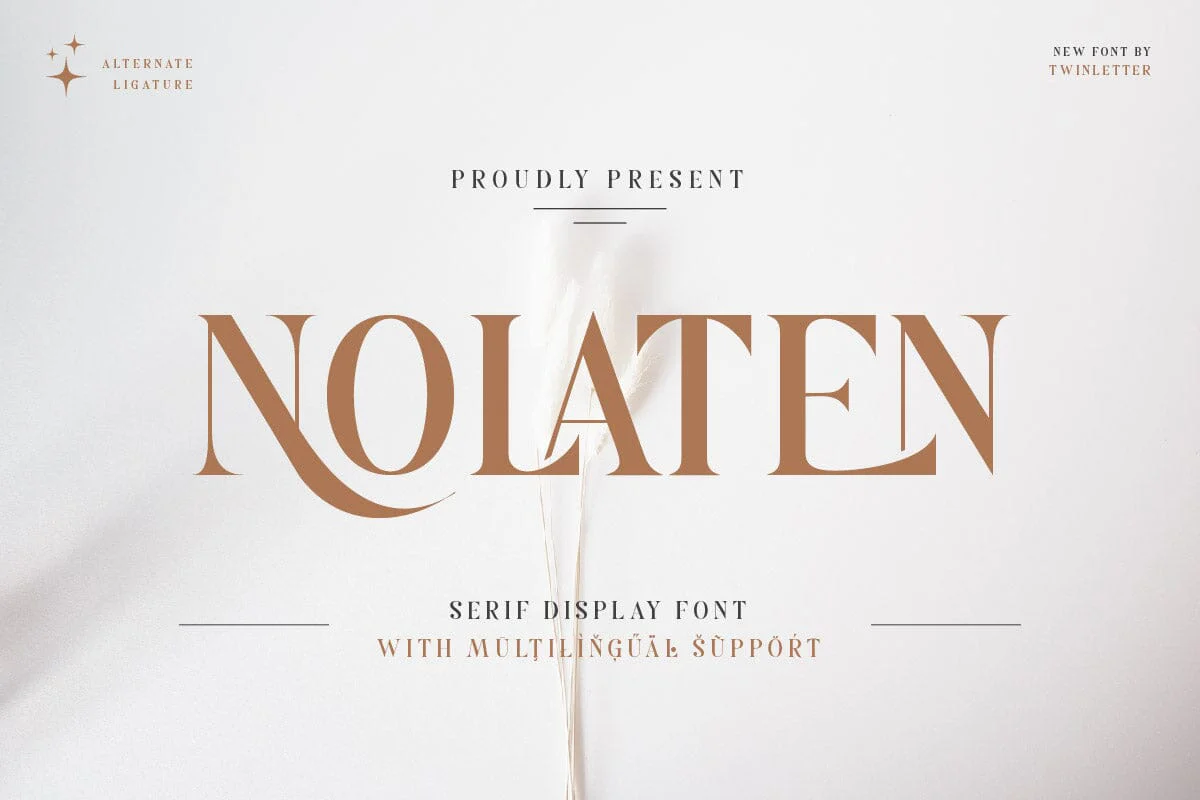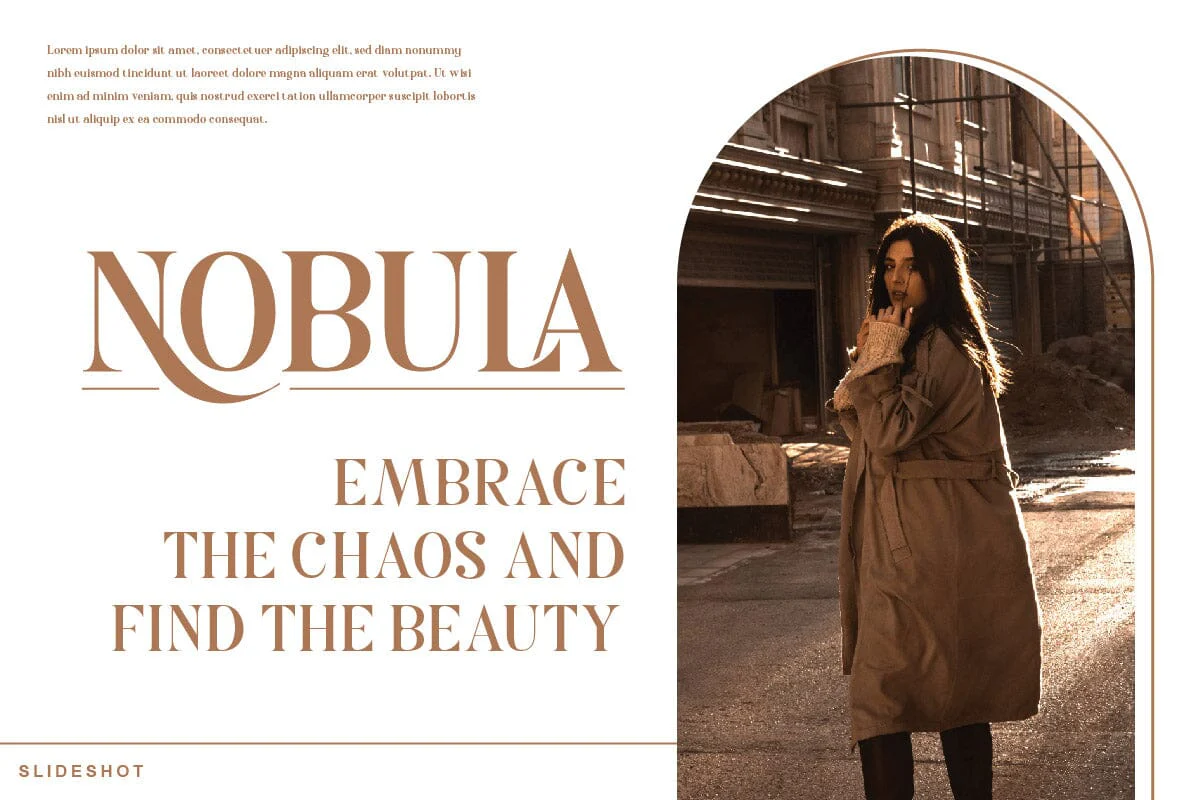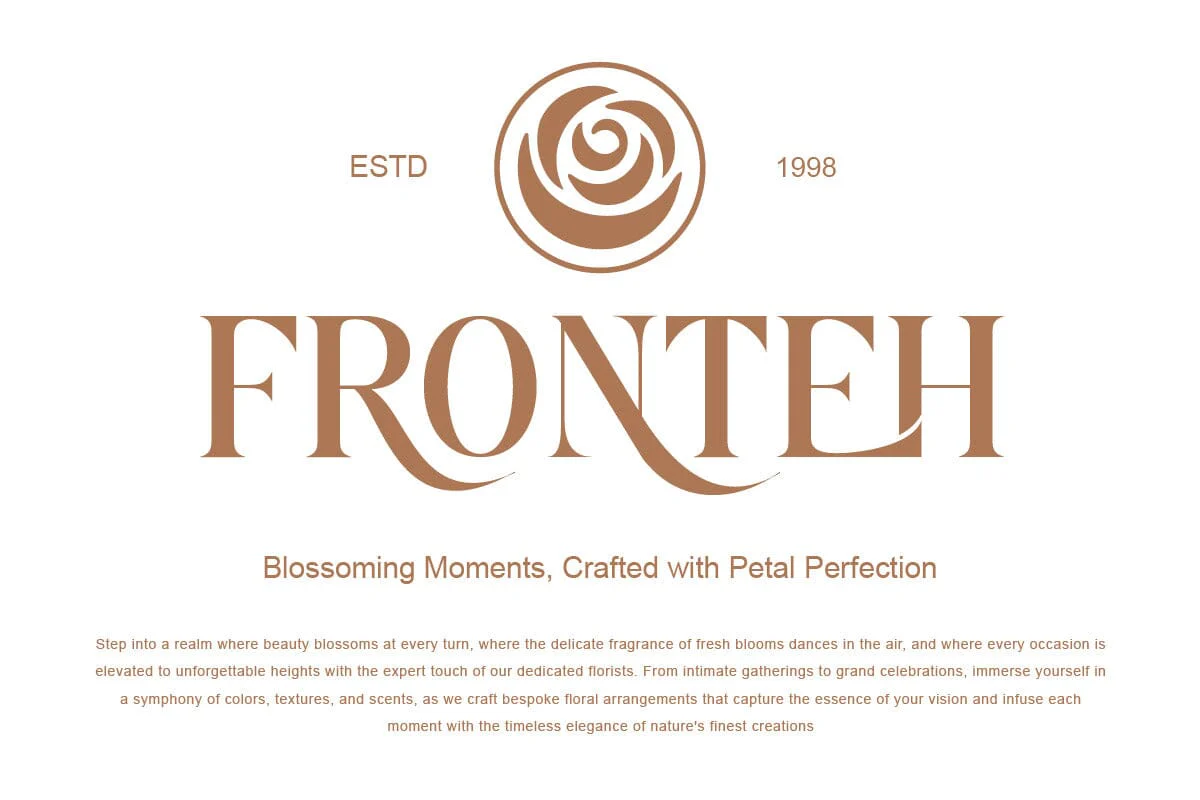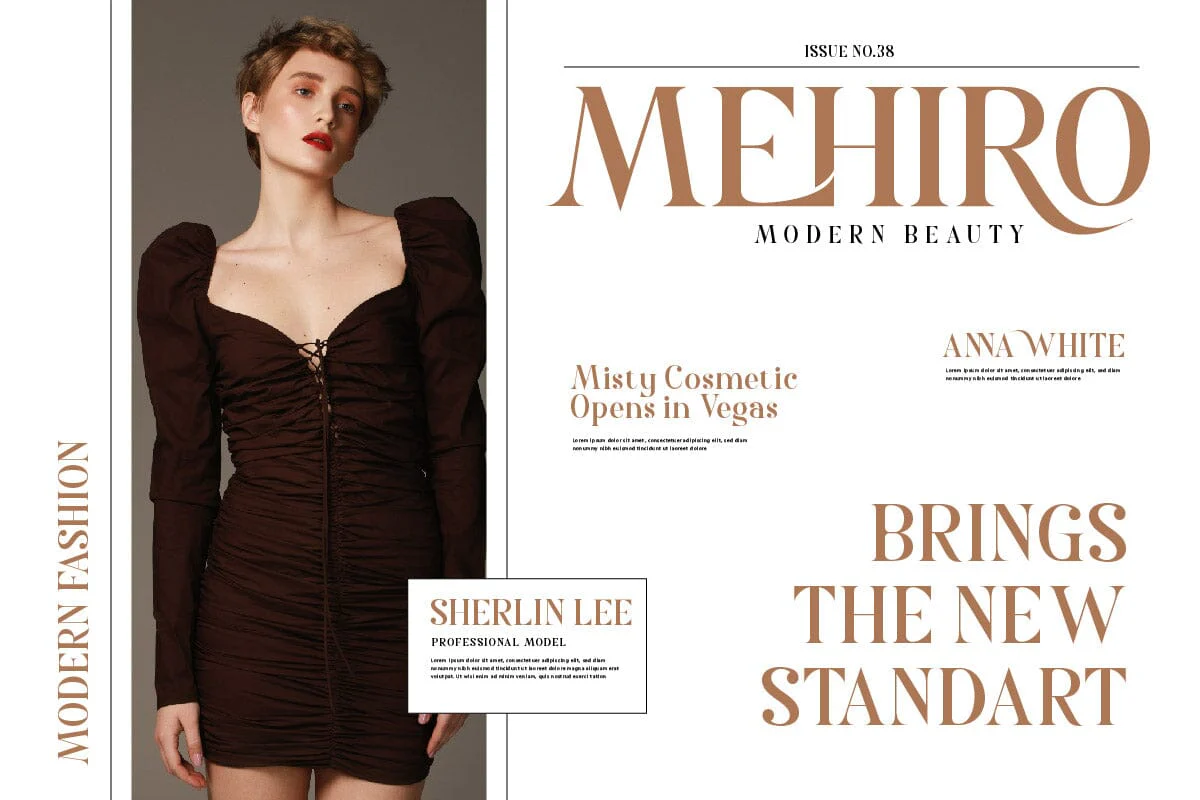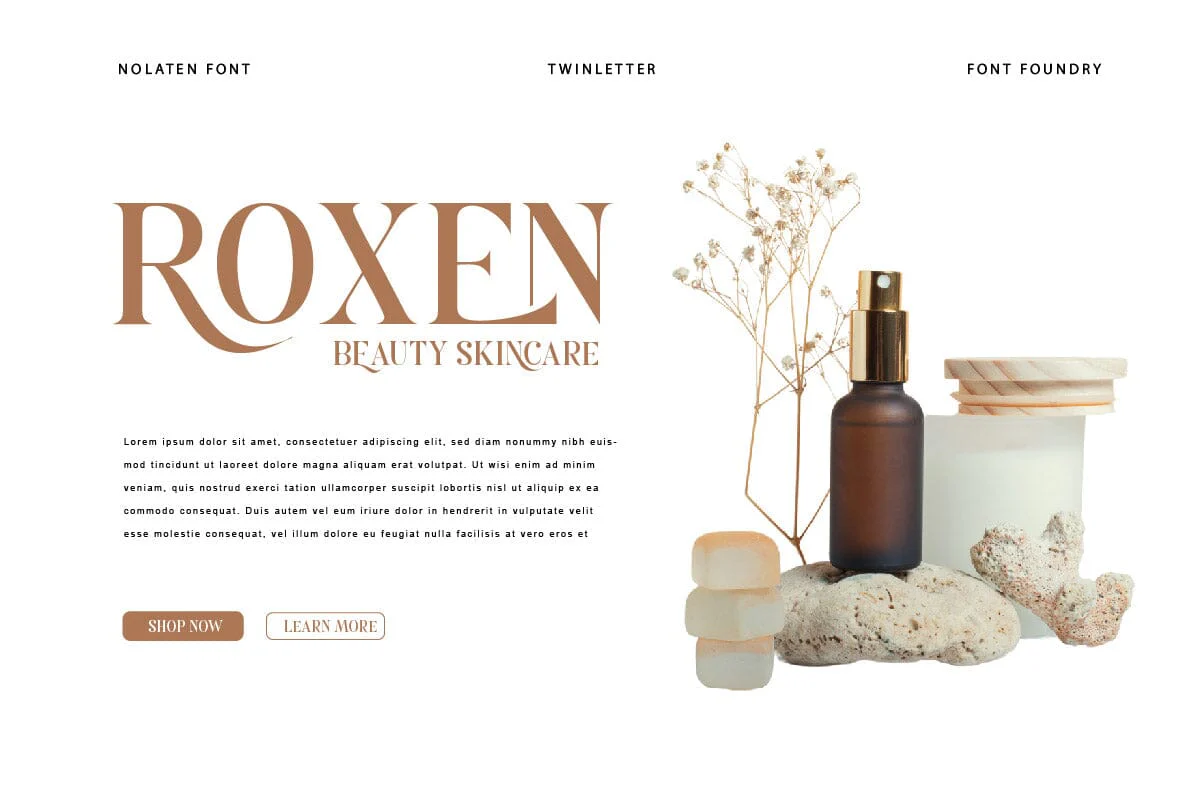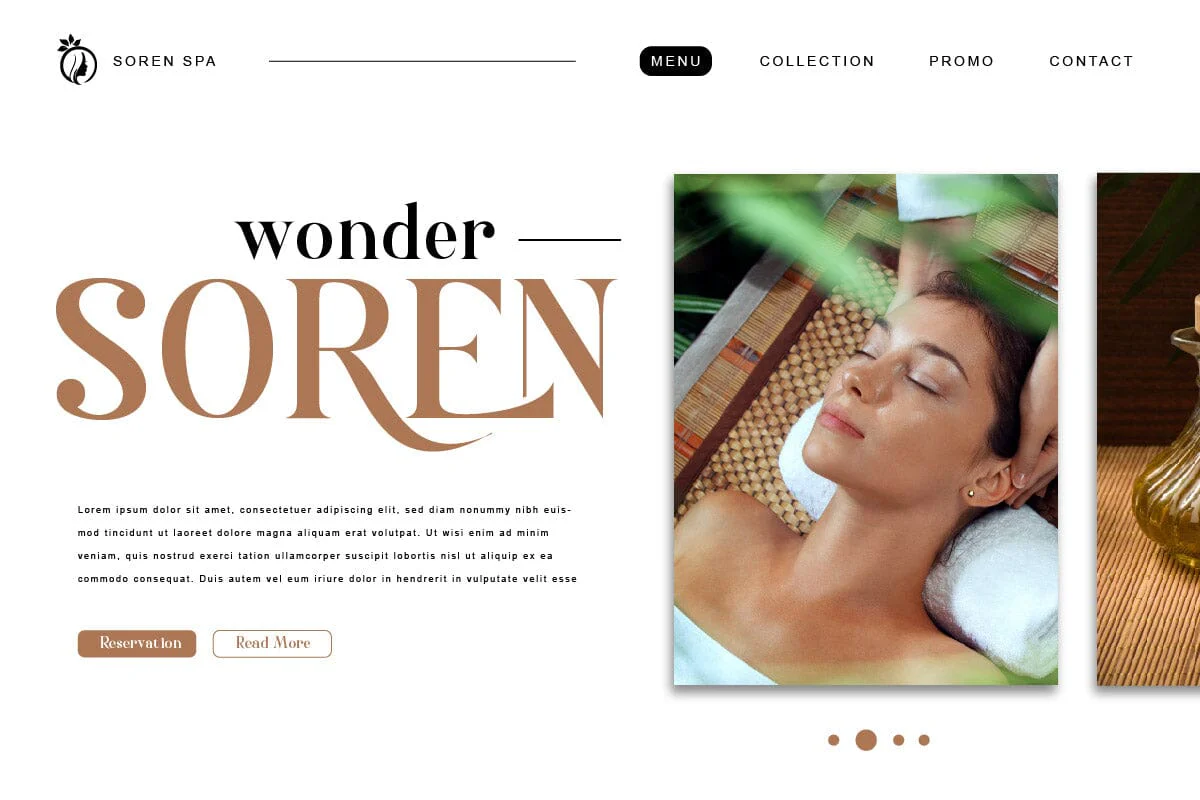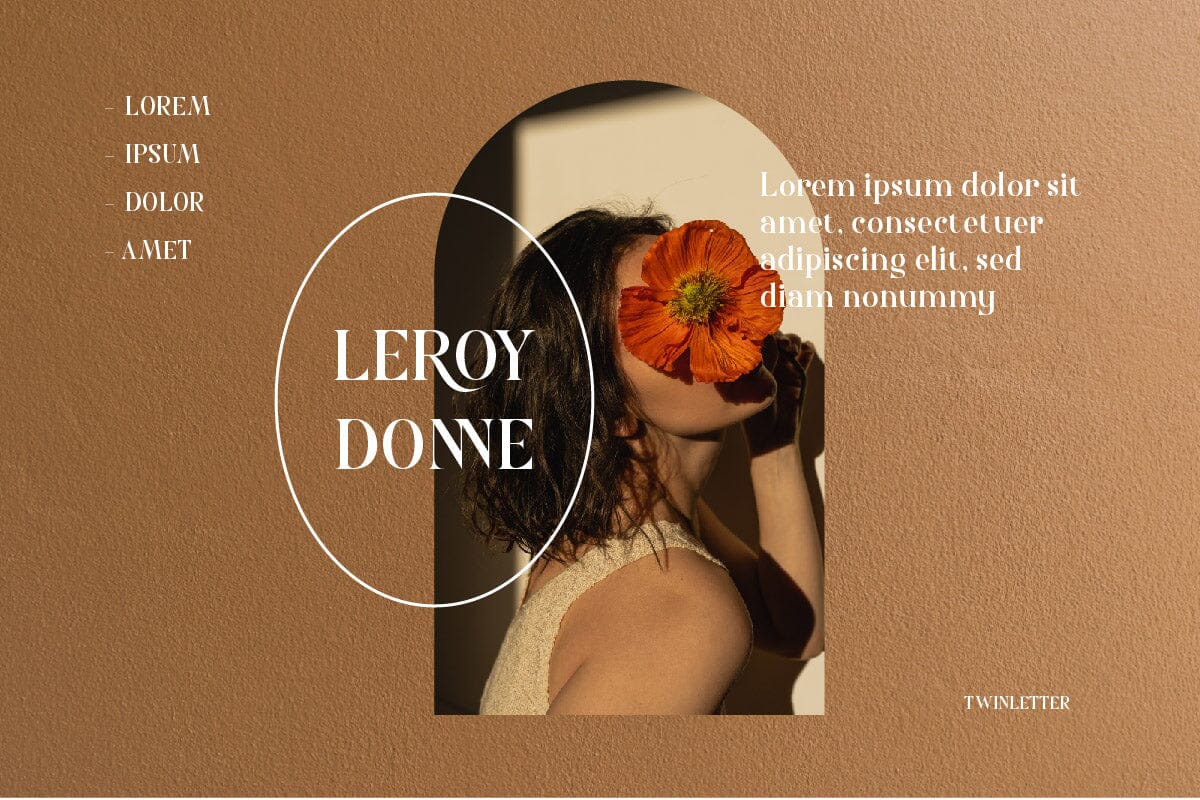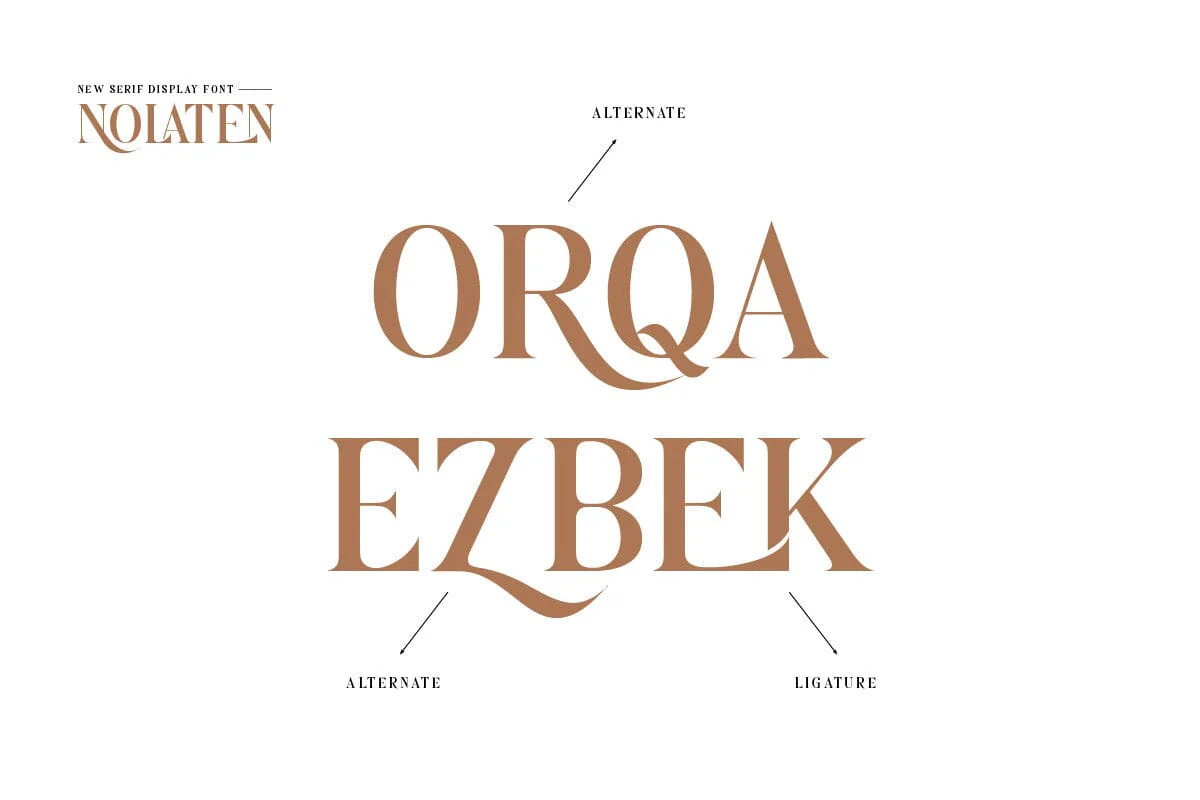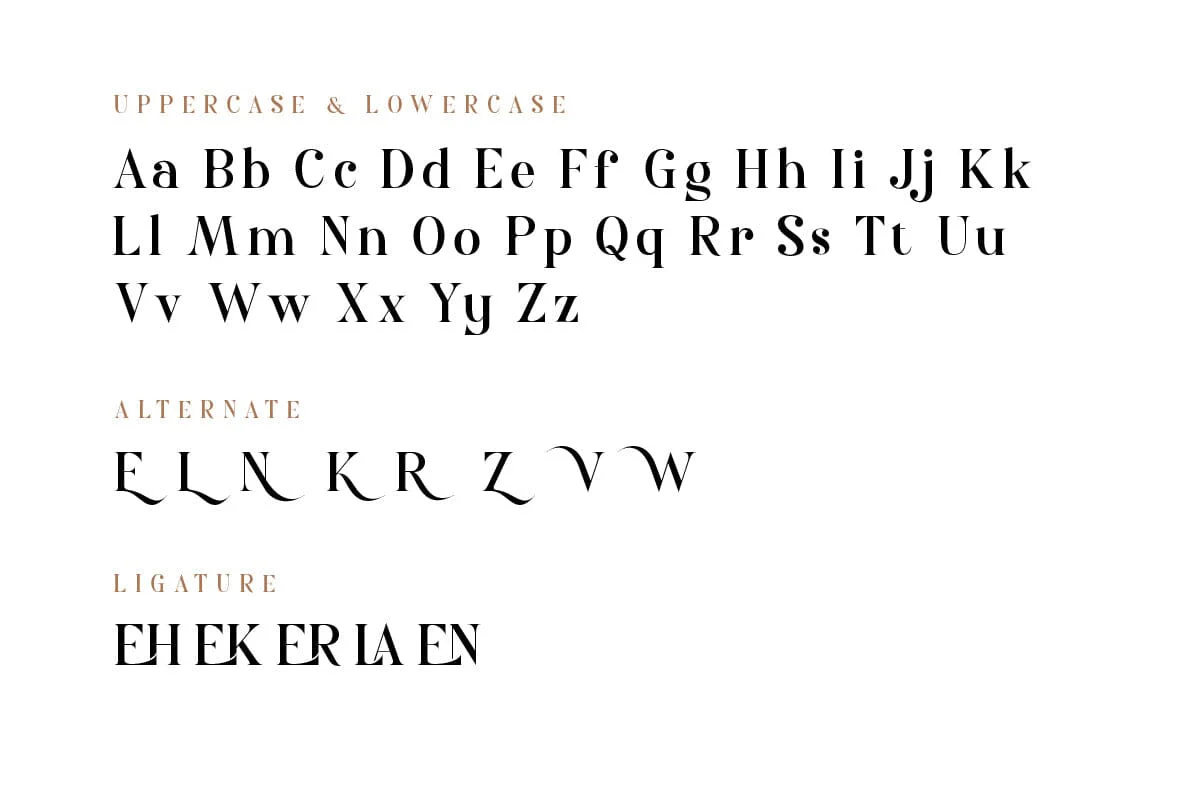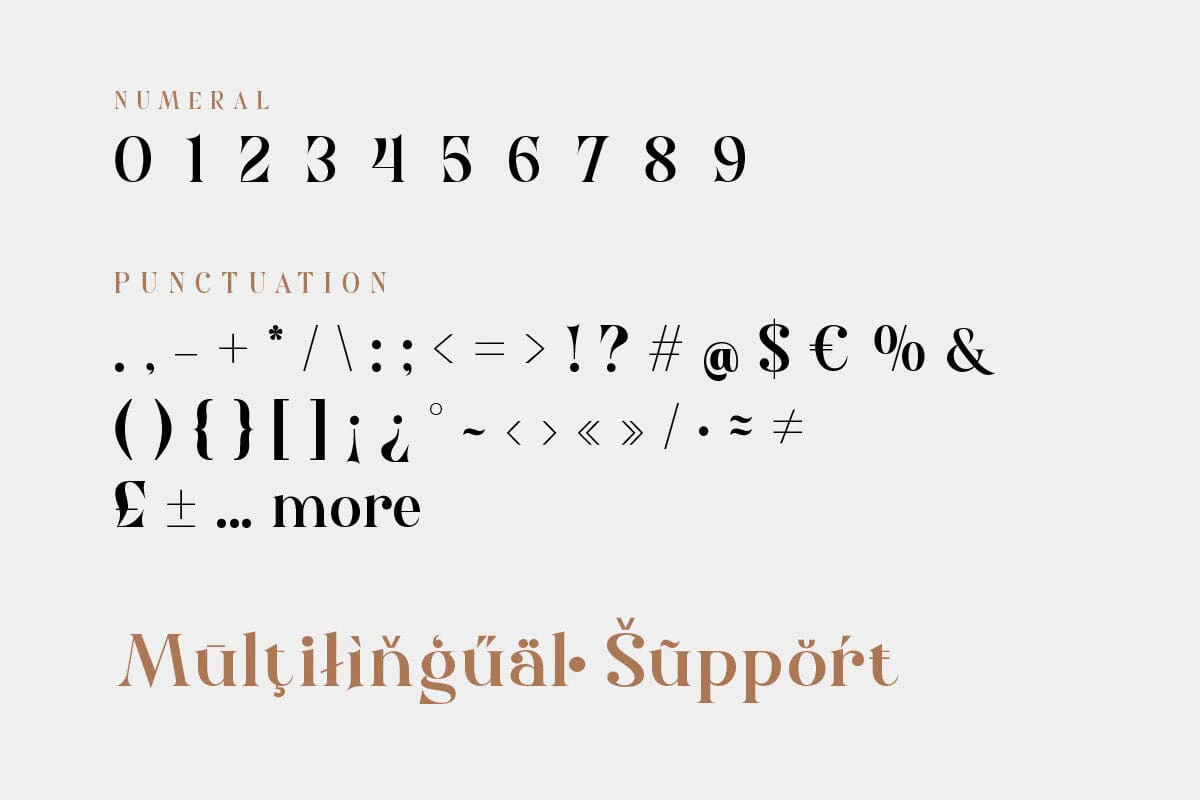
Nolaten - Serif Display Font
Nolaten is a serif display font that exudes a sense of classic sophistication. Its beautifully balanced characters and subtle serifs make it a versatile choice for a wide range of designs. Whether you’re creating a logo for a luxury brand or crafting an eye-catching headline, Nolaten adds a touch of class that is sure to impress. It’s not just a font, it’s a statement. With Nolaten, your designs will speak volumes. It’s perfect for those designs where you need to convey a sense of elegance and sophistication, such as luxury brand logos or high-end invitations. When you use Nolaten, you’re not just choosing a font, you’re choosing a lifestyle.